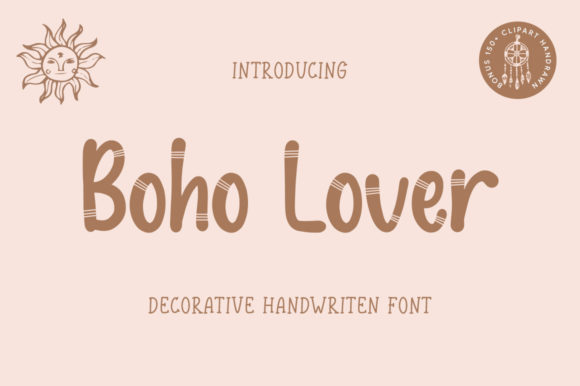
The Ultimate Guide to Boho Lover Font: Elevate Your Designs with this Cute and Friendly Display Font
I’ll never forget the time I was working on a project for a client who wanted a font that was both playful and elegant. I had spent hours scouring the internet for the perfect font, but nothing seemed to fit the bill. That was until I stumbled upon Boho Lover Font. This adorable display font has been a game-changer for my designs, and I’m excited to share its awesomeness with you! 😊
An Honest Review of Boho Lover Font
What I Love About Boho Lover Font
- ✨ Its playful and friendly vibe makes it perfect for a wide range of projects, from wedding invitations to social media graphics.
- ✅ The font is incredibly versatile and can be used for both headlines and body text.
- 💕 The unique letterforms and quirky charm of Boho Lover Font add a touch of personality to any design.
While Boho Lover Font is an amazing addition to any font library, there are a few things to keep in mind:
- 🤔 The font may not be the best choice for very long blocks of text, as its playful nature can be overwhelming.
- ⚠️ Some of the more intricate details may not render well at very small font sizes.
A Practical Guide to Using Boho Lover Font
The Backstory Behind Boho Lover Font
While the true story behind Boho Lover Font may be a mystery, it’s easy to imagine that it was created by a designer who’s passionate about bohemian style and free-spirited creativity. Perhaps the designer was inspired by the colorful markets and eclectic fashion of a hipster neighborhood, and wanted to capture that essence in a font.
| Q: What type of projects is Boho Lover Font best suited for? | A: Boho Lover Font is perfect for a wide range of projects, including wedding invitations, social media graphics, posters, and more. |
| Q: Is Boho Lover Font easy to read? | A: Boho Lover Font is a display font, so it’s best used for headlines and short blocks of text. While it’s still readable, it may not be the best choice for very long blocks of text. |